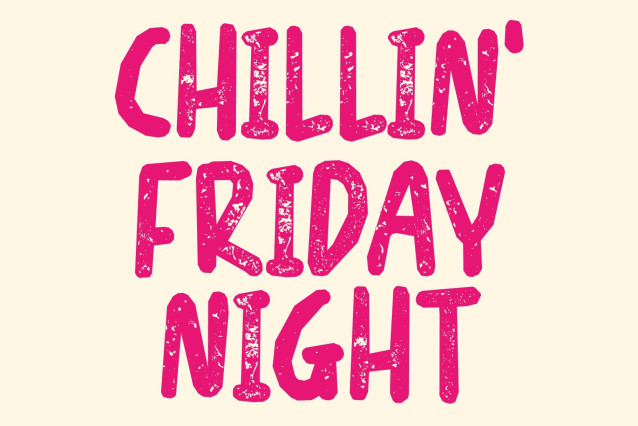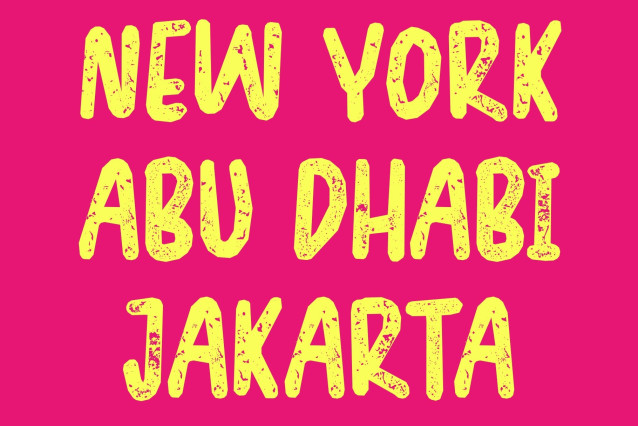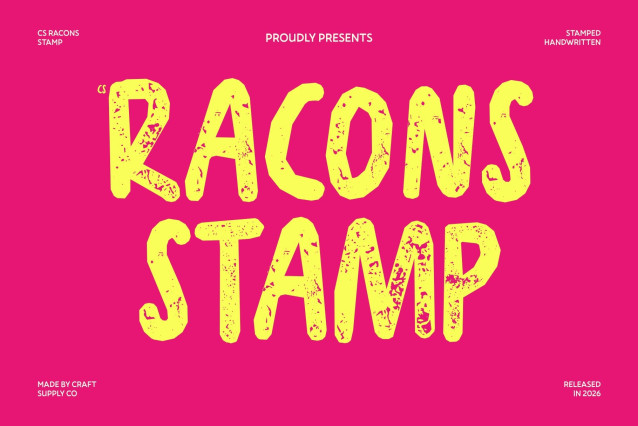
CS Racons Stamp – Cute Display Font: Where Playful Charm Meets Vintage Expression
Rounded Shapes with Cheerful Personality
This is a playful and cheerful display font designed with rounded shapes and friendly strokes that radiate warmth and charm. Its soft curves and lively forms create a fun and approachable visual style, making every composition feel energetic, joyful, and full of personality. The font’s expressive character makes it perfect for projects that aim to create a happy and inviting atmosphere.
Fun Modern Style with Friendly Appeal
This font delivers a typographic voice that feels cute, vibrant, and highly engaging. Its balanced forms maintain readability while preserving a playful rhythm, allowing the font to work beautifully across creative and family-friendly designs.